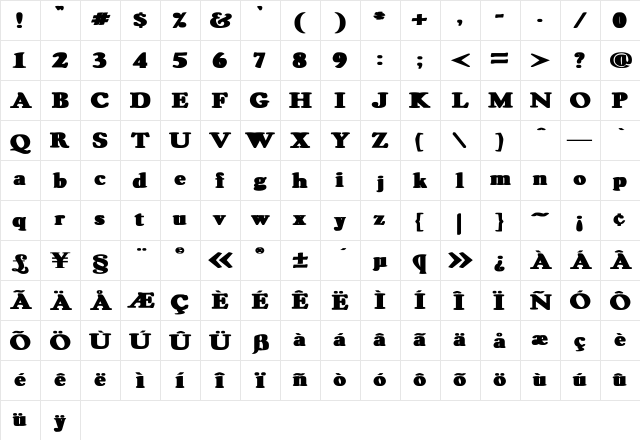
RSOswaldGrey Wd bold Bold Font Preview
RSOswaldGrey Wd bold Bold
Design Context for RSOswaldGrey Wd bold Typeface
RSOswaldGrey Wd bold takes a measured approach to typography — its balanced proportions and neutral character make it a reliable workhorse for both digital and print work. The heavy weight commands attention and anchors typographic hierarchies.